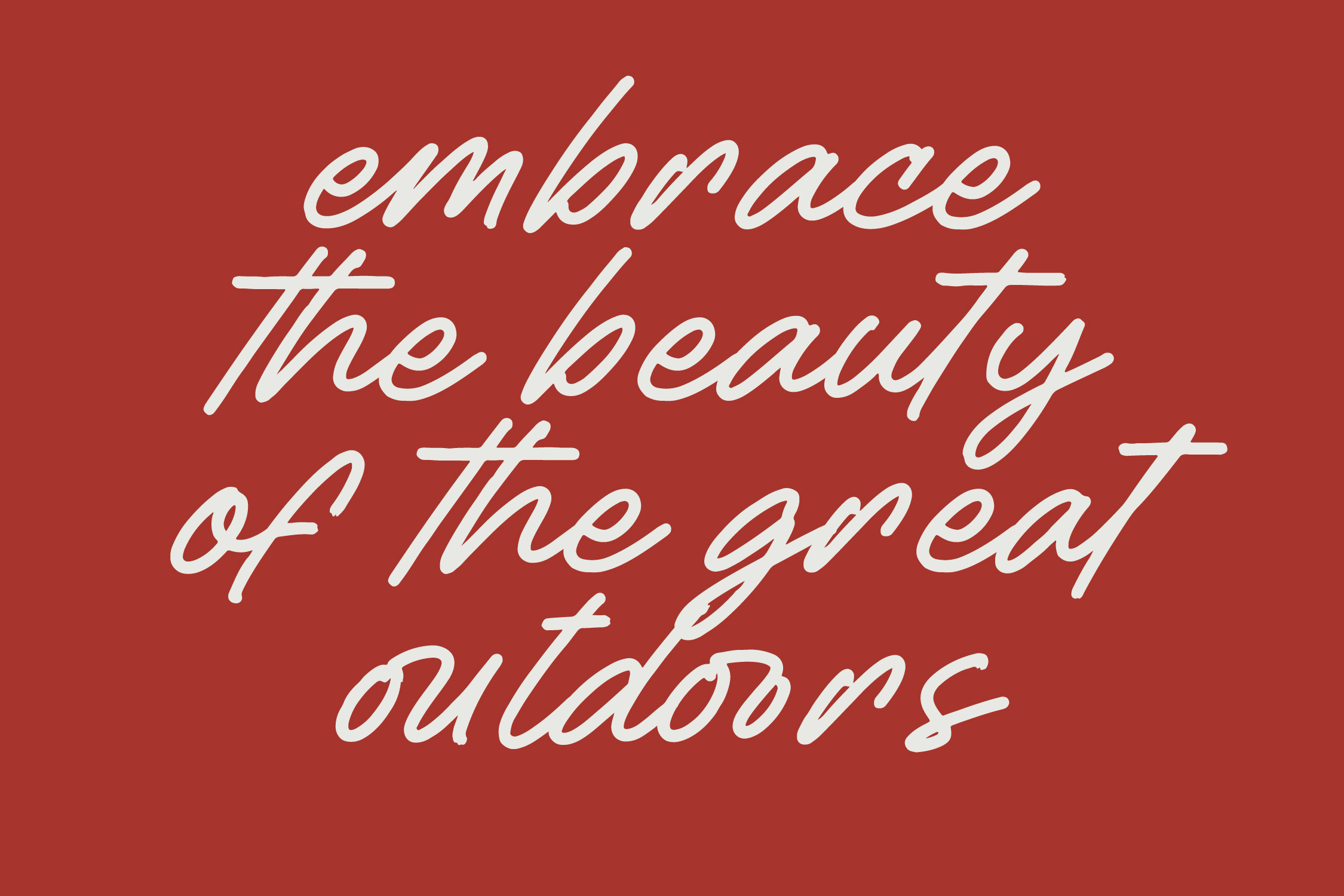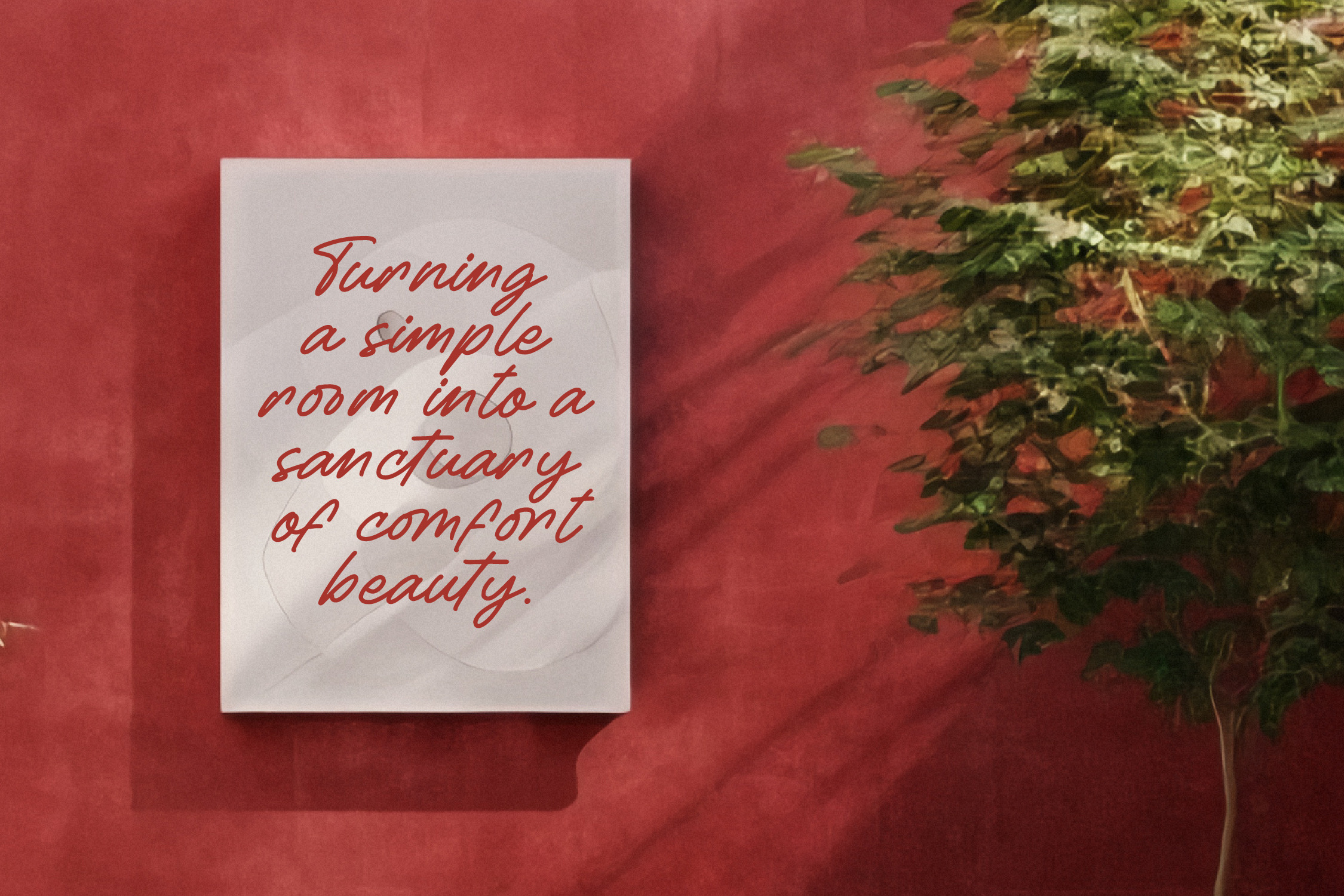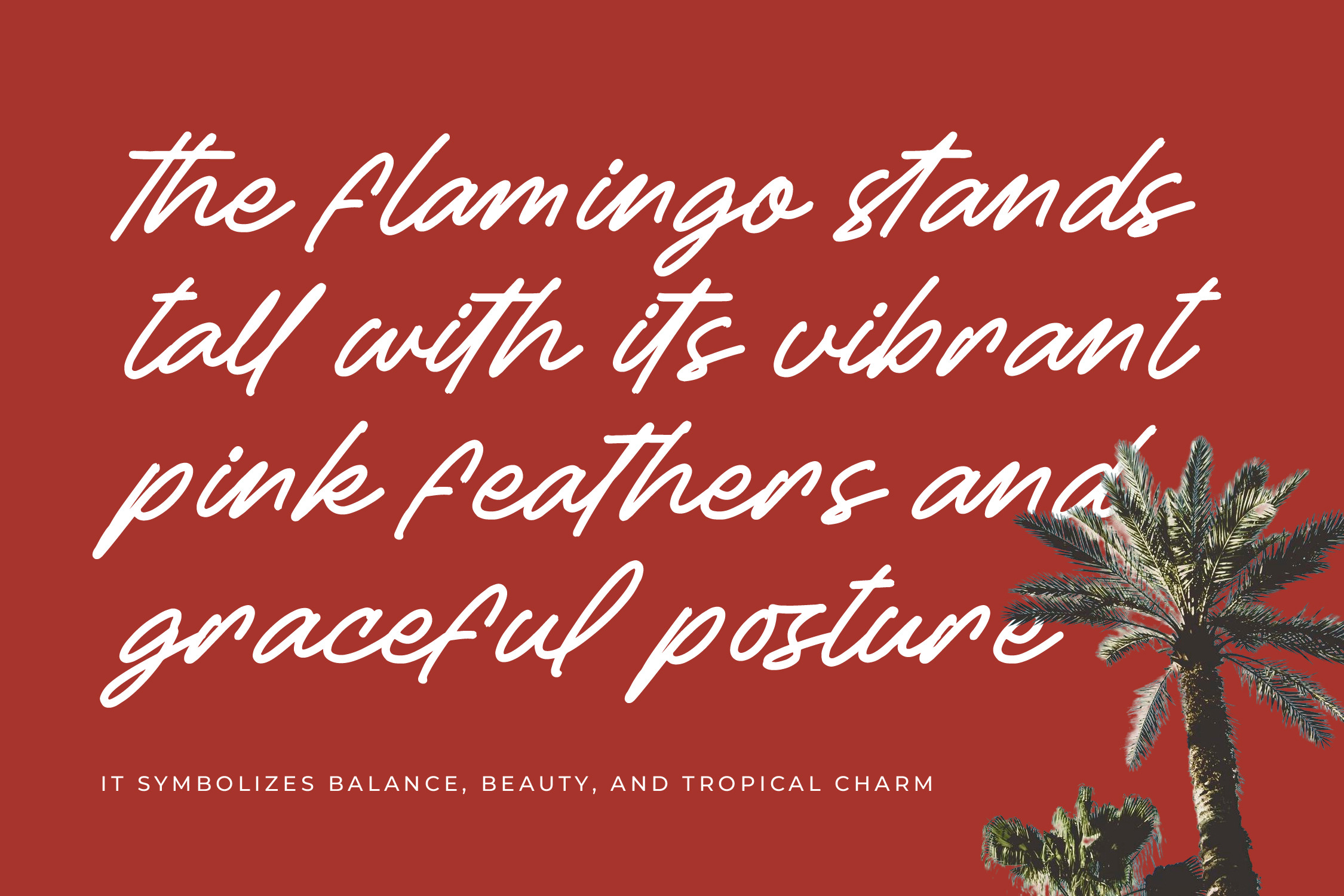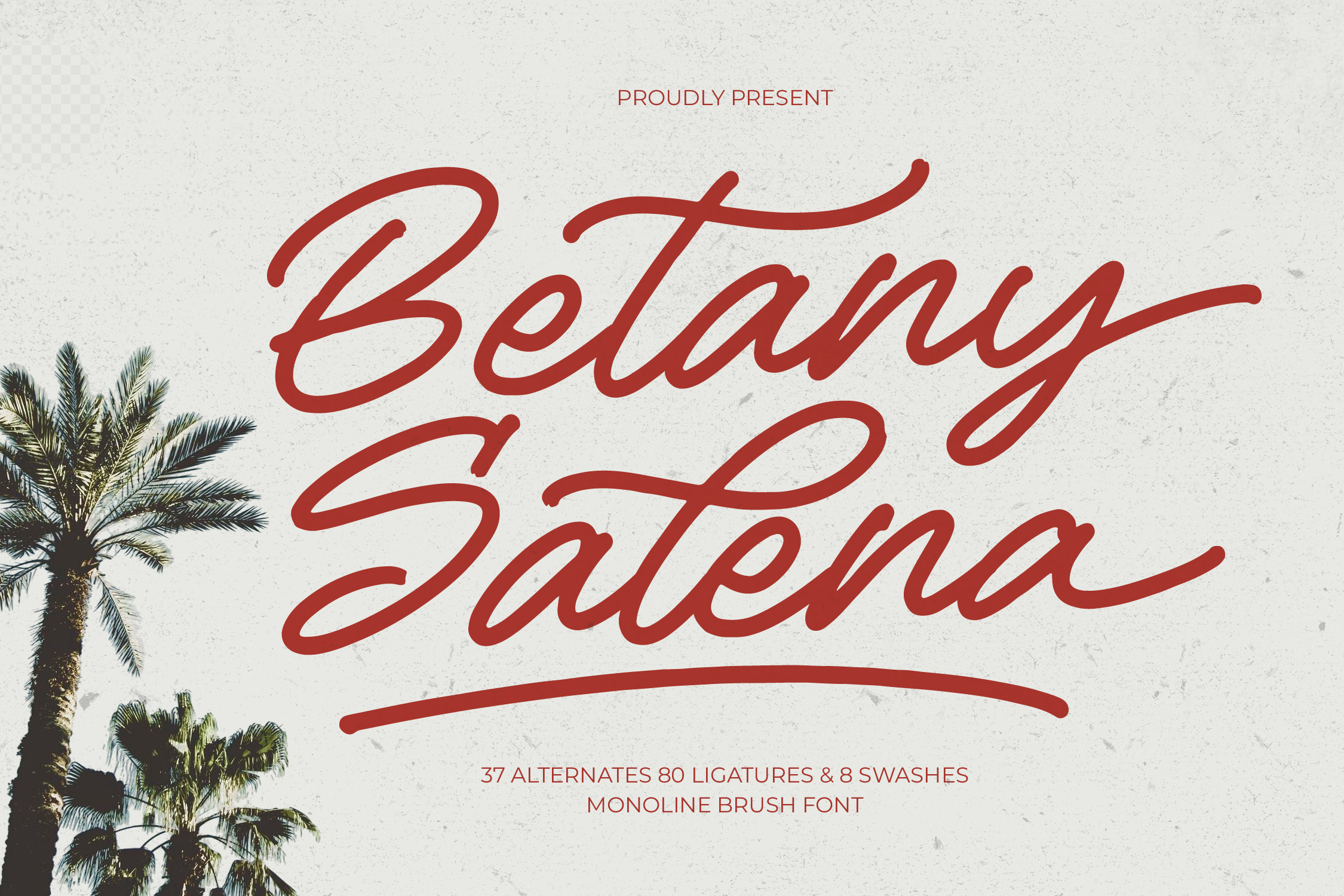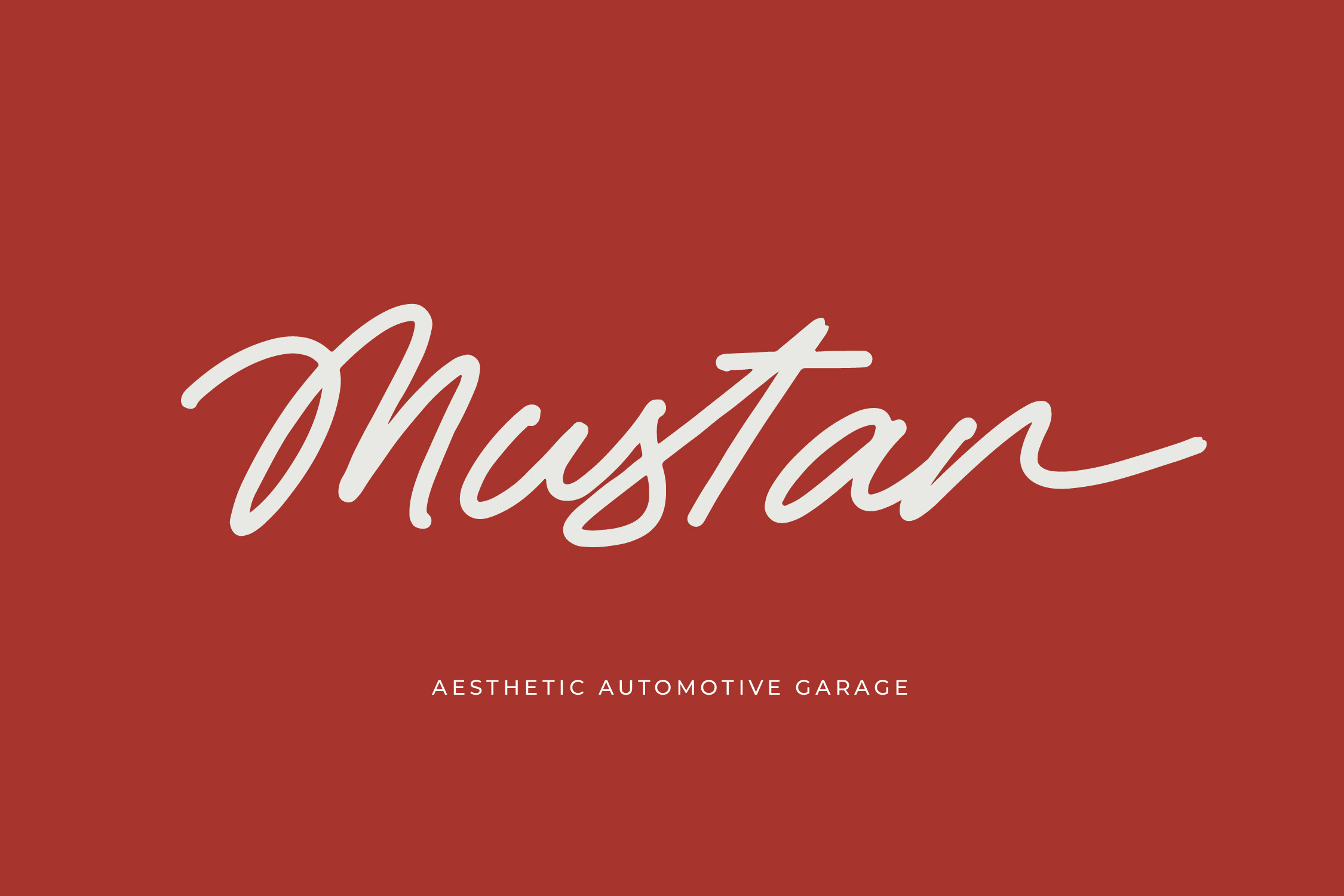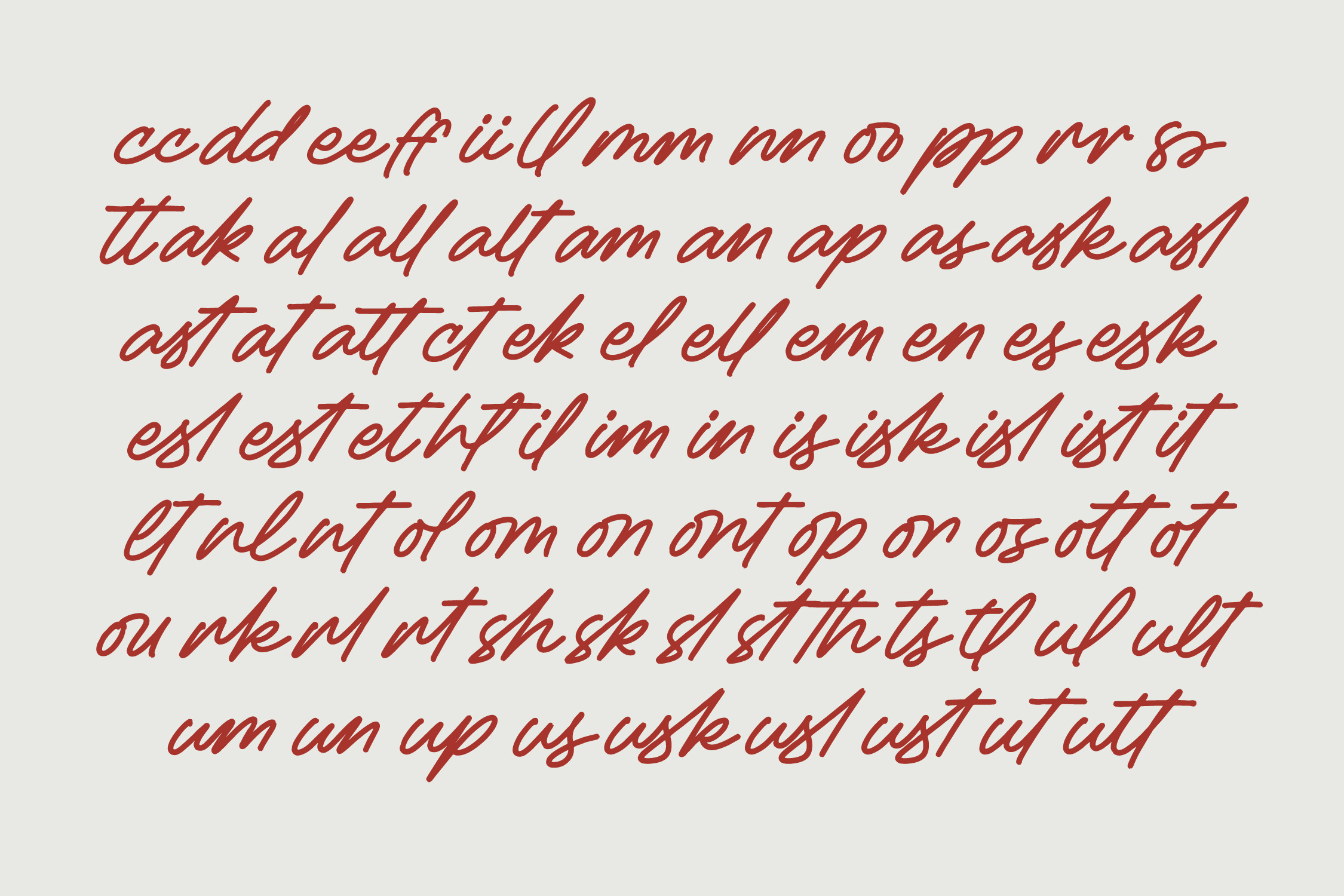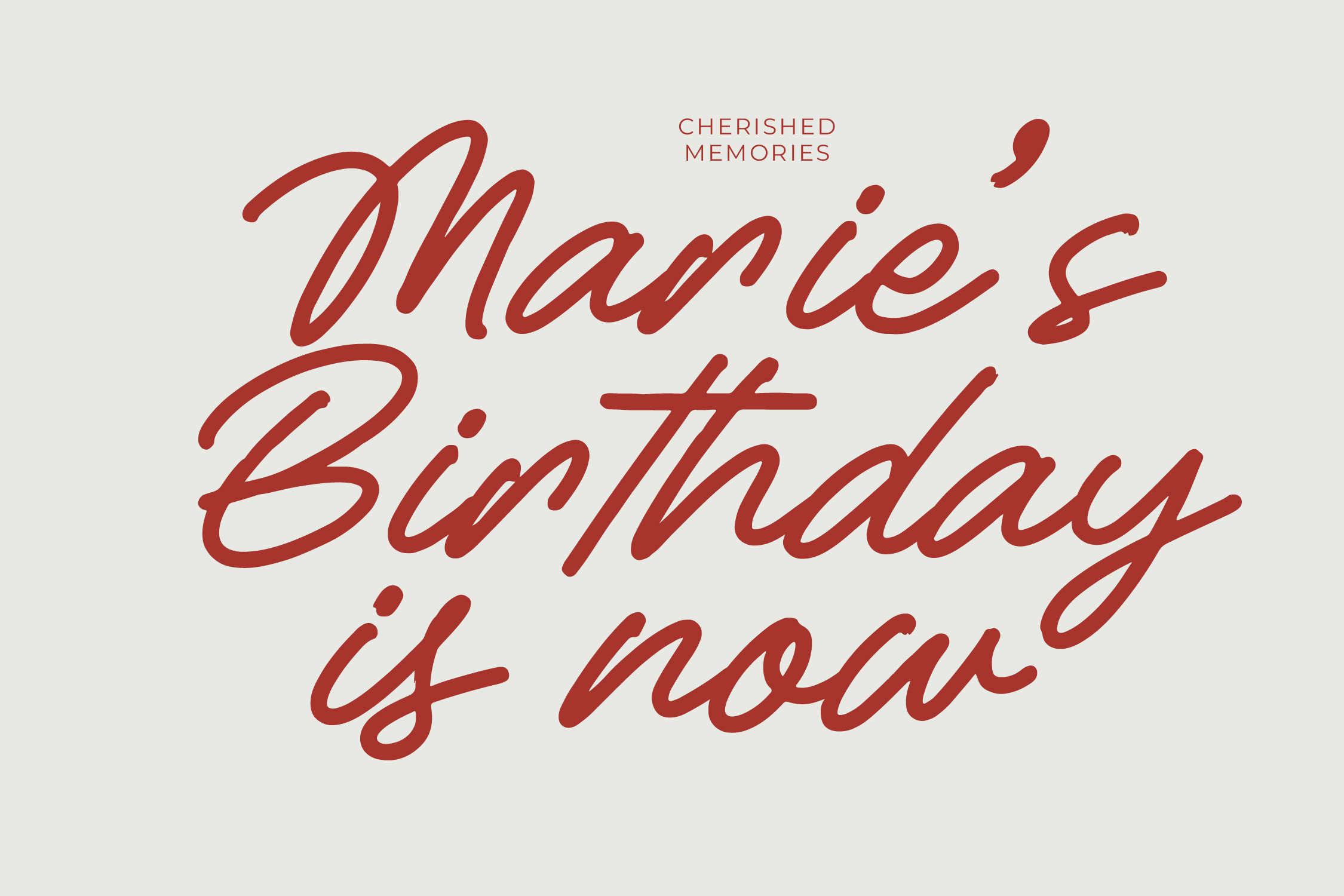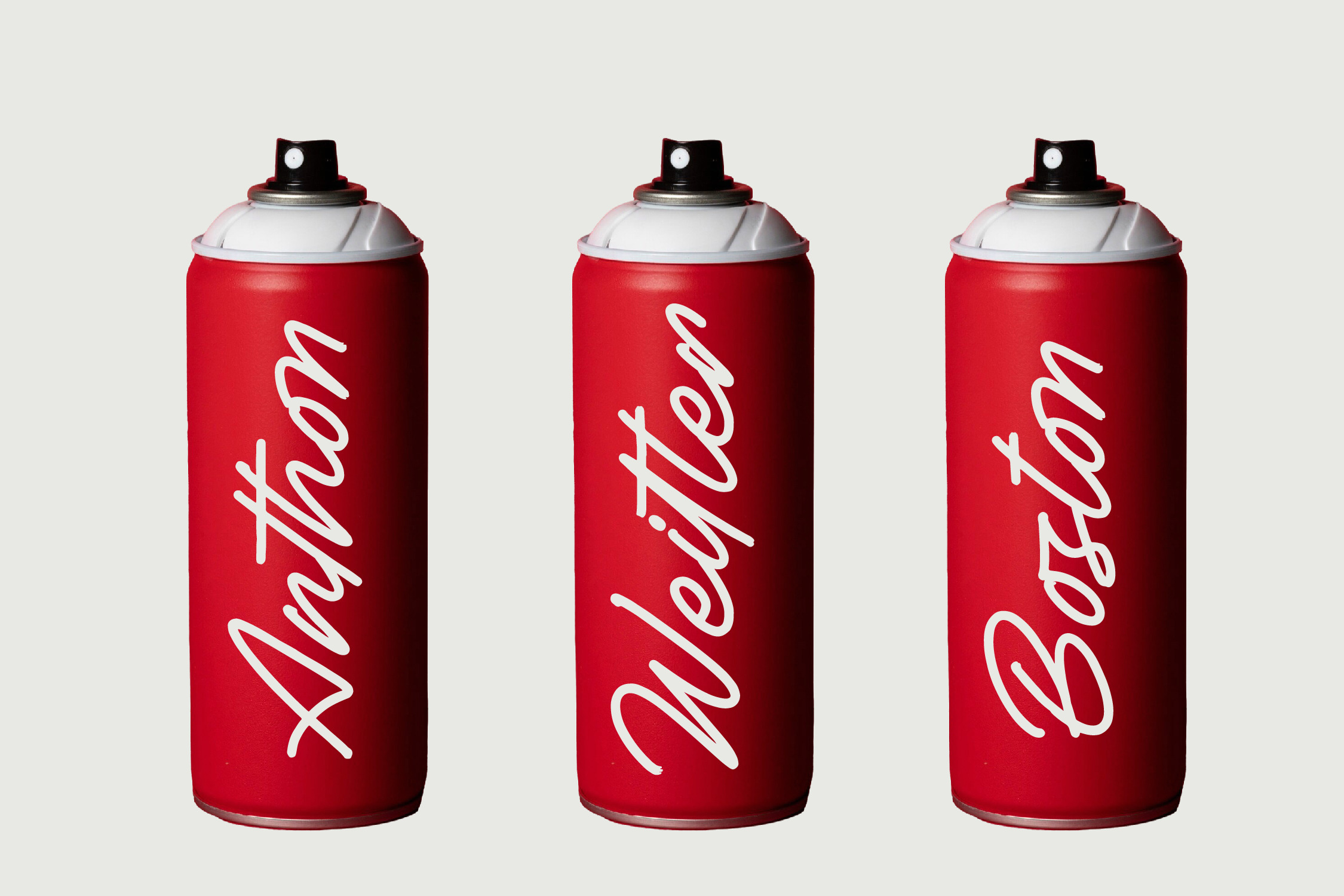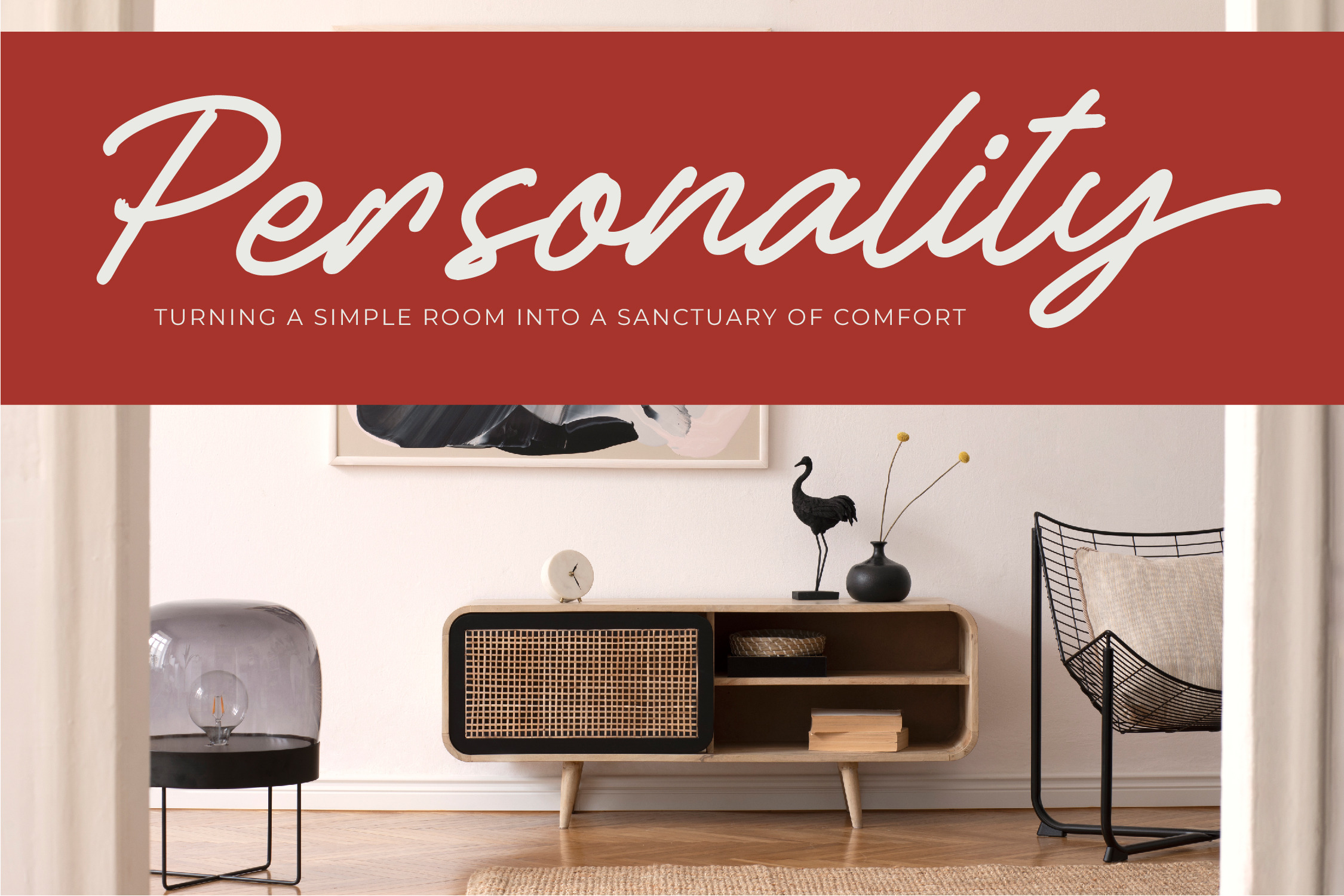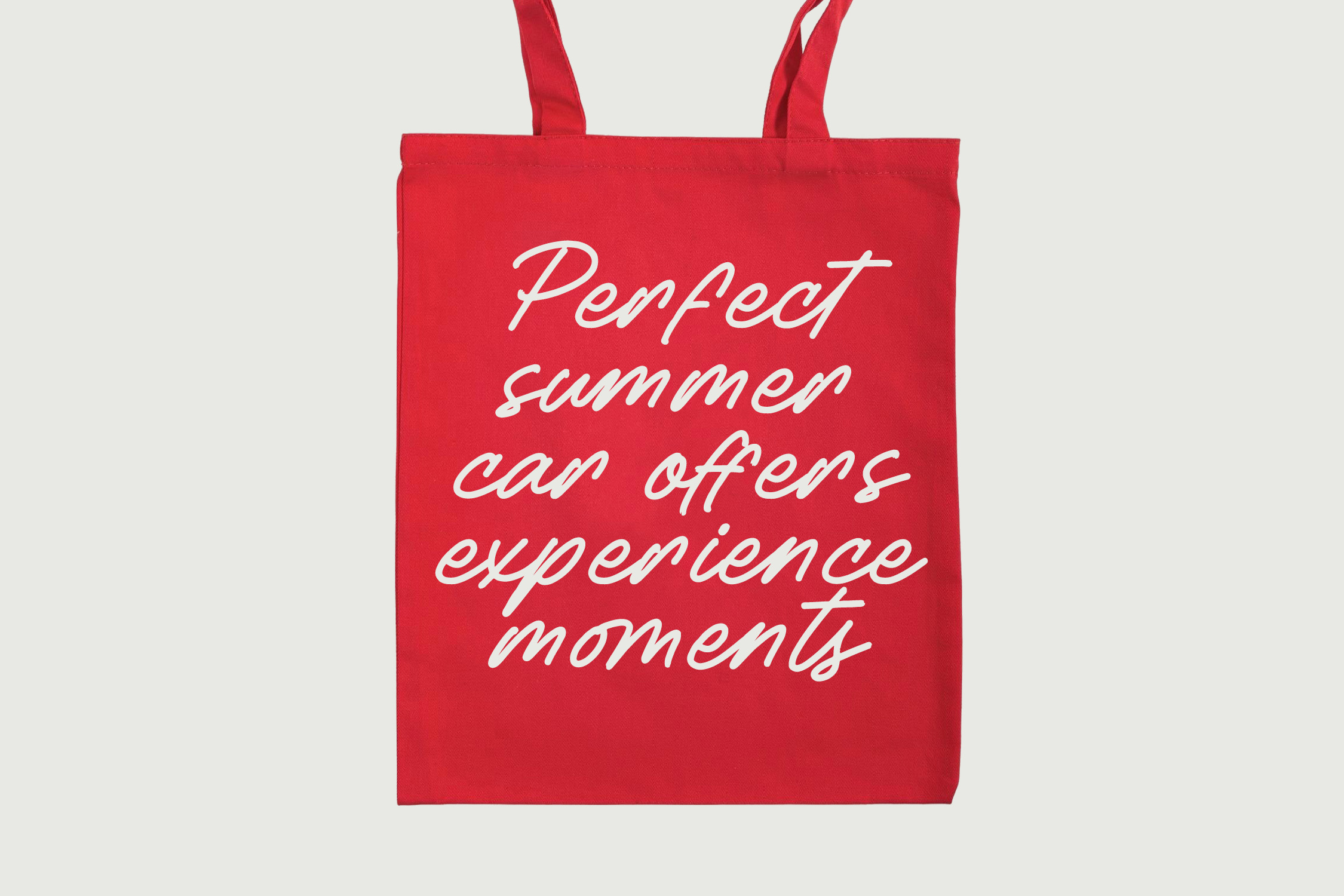
Betany Salena - Monoline Brush Font , from Letterena, is a Luxury Script font, suitable for any projects such as: logos, branding projects, homeware designs, product packaging, mugs, quotes, posters, shopping bags, t-shirts, book covers, name card, invitation cards, greeting cards, label, photography, watermark, special events, and all your other luxury and beautiful projects that need a Luxury Script taste. - Product Content : - TTF - OTF - WOFF Features : - 80 Ligature 37 Alternate & 8 Swashes - Uppercase and Lowercase - Numerals - Punctuations (OpenType Standard) - Accents (Multilingual Characters) - Ligatures and Alternative Style Stylistic Set - Works on PC and Mac - Simple installations Thank You. | Betany Salena Monoline Brush Font | Letterena Studios Script